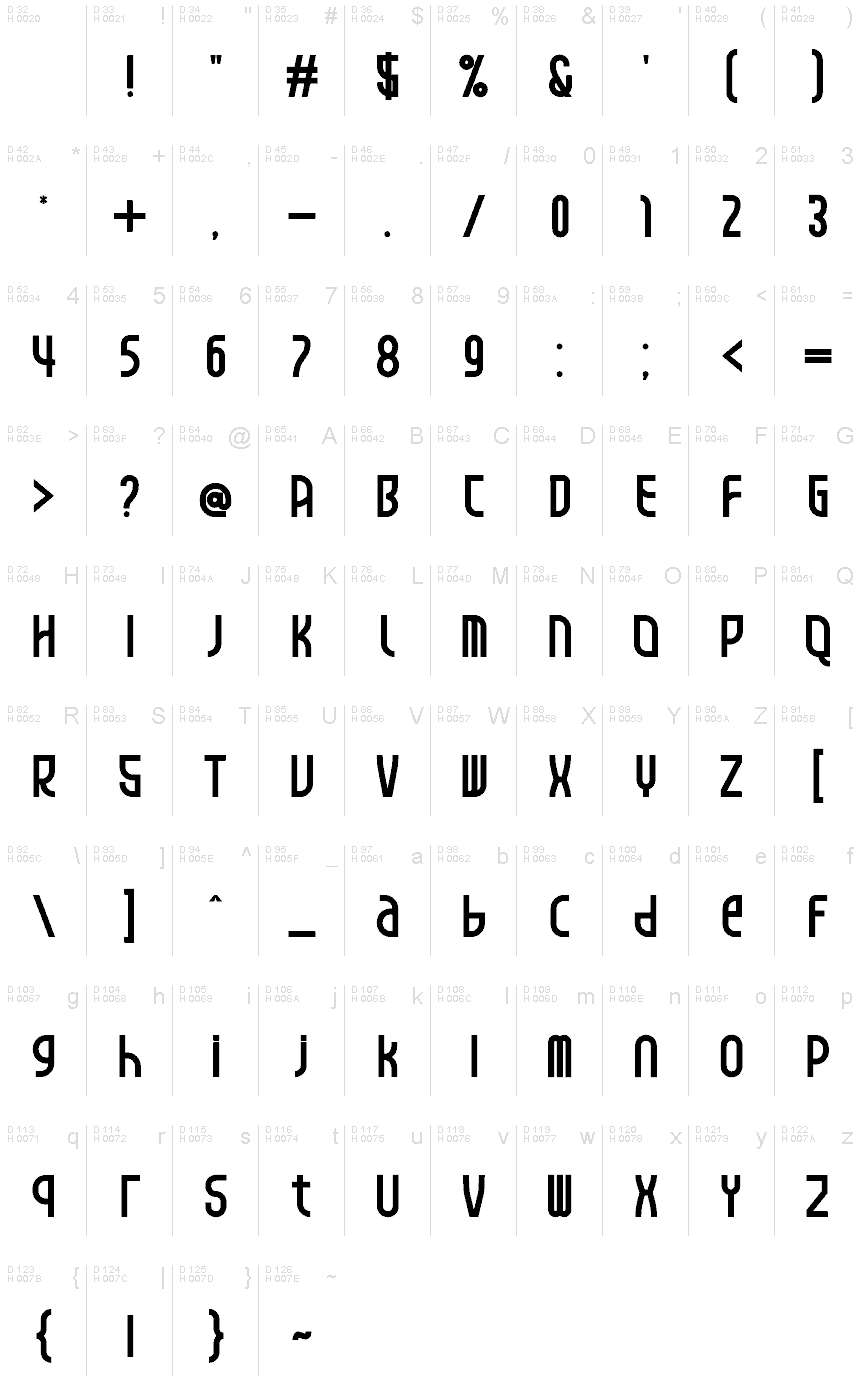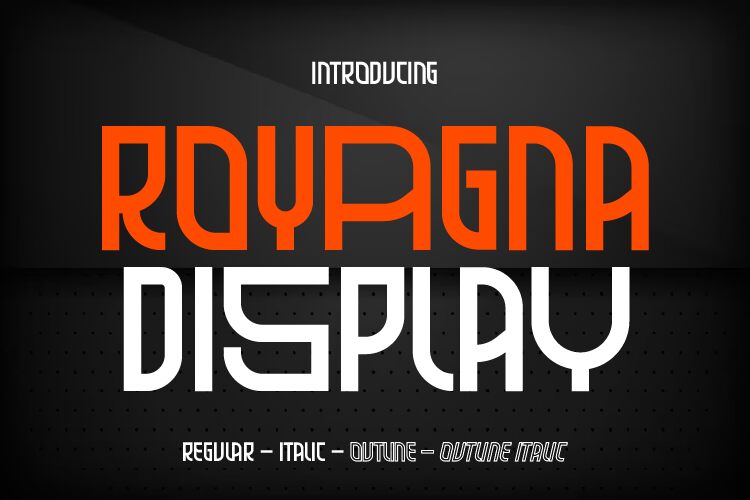
Royagna
Royagna font by Rvandtype conveys a futuristic streamlined design within each of its letters. The geometric form that dominates the characters is further emphasized by their condensed bodies and minimalistic aesthetic. The font is an immediately eye-catching and appealing choice which can be used for a wide variety of design projects.
Wonderful use cases for this free techno display font in digital applications include mobile apps, digital advertisements, websites, games, social media content, and videos among others. As for print projects its create application consists of poster designs, brochure or flyer designs, book covers, banners, artwork packaging sleeves (CD or Vinyl), magazine covers etc.